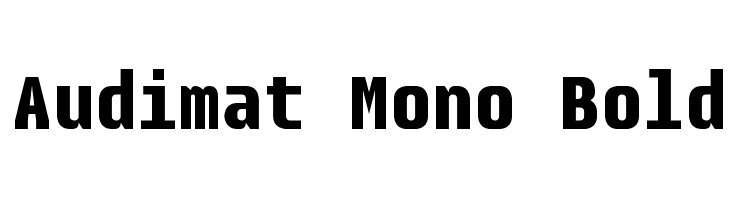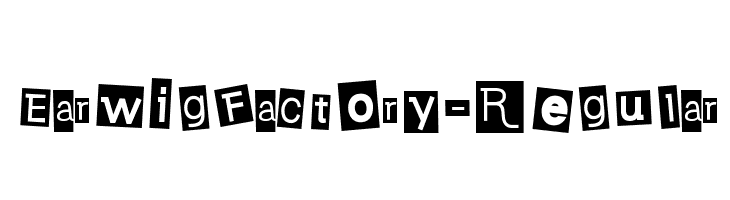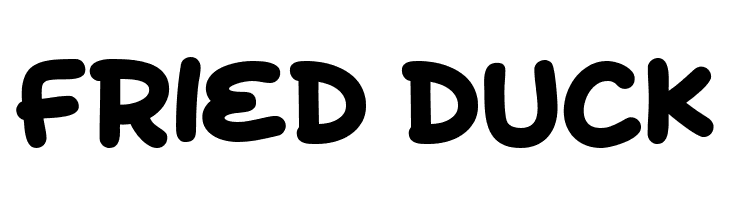
A bold, monospaced font with geometric shapes and consistent character width.
A playful, eclectic font with a cut-and-paste ransom note style.
A classic serif font with elegant, slightly italicized characters.
A bold, outlined font with a modern and geometric style.
A dynamic and energetic handwritten font with fluid cursive strokes.
A playful, bold font with rounded, bubbly characters perfect for fun and engaging designs.